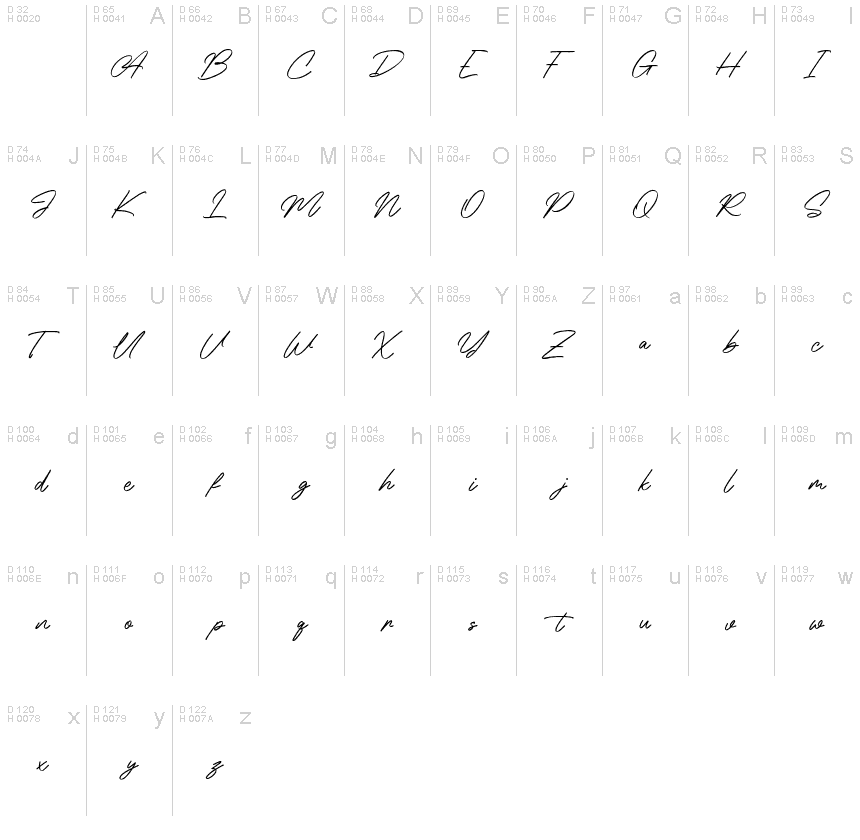
Cityskypes Free Regular
Cityskypes is a stunning handwritten signature font designed by Maulana Creative. Its delicate and graceful letterforms are perfect for adding a personal touch to invitations, greeting cards, and other stationery. With its light weight, Cityskypes exudes an elegant and refined feel that is perfect for upscale branding projects such as fashion or jewelry stores. The flowing curves of this typeface also make it ideal for use in social media graphics or blog headers. Add a touch of sophistication to your next project with Cityskypes – the perfect choice for those seeking a high-end, personalized look.